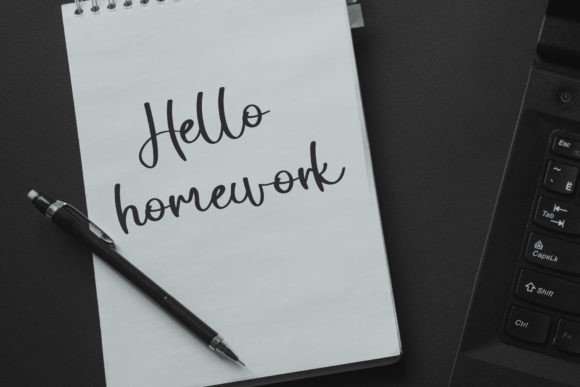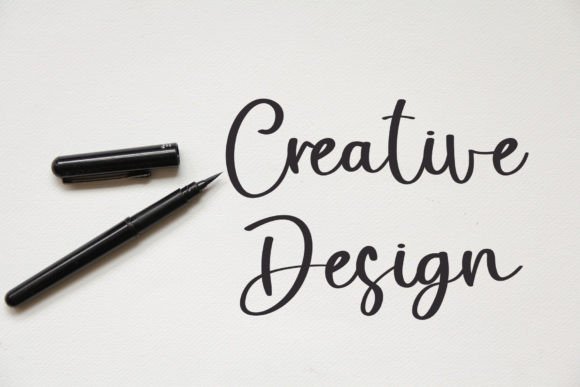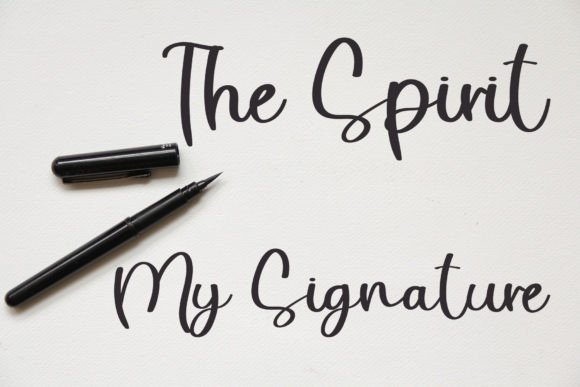
Introduction to Holistic Signature Font
As designers, we’ve all been there – staring at a blank canvas, trying to bring our creative vision to life. The perfect font can be the difference between a design that falls flat and one that truly shines. That’s why I’m excited to introduce you to the Holistic Signature Font, a delicate handwritten font that’s about to become your new go-to design resource.
With its unique blend of elegance and whimsy, the Holistic Signature Font is perfect for adding a touch of personality to your next creative project. Whether you’re designing a wedding invitation, a food label, or a social media graphic, this font is sure to add a special something that sets your design apart from the crowd.
Key Features of Holistic Signature Font
- High-quality design resource perfect for creative projects, offering a unique and modern aesthetic.
- Designed to be highly legible, with a clear and crisp font face, making it perfect for logos, branding, and signage.
Honest Review: Holistic Signature Font
I recently came across the Holistic Signature Font, and I must say it’s a fantastic addition to any designer’s toolkit. As a design resource, it offers a lot of potential for creative projects.
- ✨ The font is high quality and has a unique, organic feel that’s perfect for branding and marketing materials.
- ⚠️ The font may not be suitable for all types of projects, particularly those that require a more formal or traditional look.
- ⚠️ Some users may find the font too bold or overpowering, depending on the context.
Overall, I’m really impressed with the Holistic Signature Font. It’s a great resource for designers who want to add a touch of personality to their creative projects. With its high quality and unique design, it’s definitely worth considering for your next project.
Holistic Signature Font
The Holistic Signature Font is a versatile design resource perfect for creative projects. Its transparent background allows for seamless integration into various design platforms.
For the best results, use the Holistic Signature Font in conjunction with other high-quality design elements. Experiment with different font sizes, colors, and styles to create a unique look.
The Holistic Signature Font is perfect for various creative projects, including logos, business cards, and social media graphics. Its versatility makes it a valuable design resource for designers and non-designers alike.